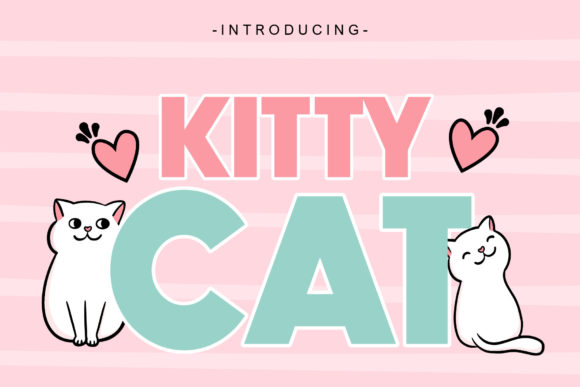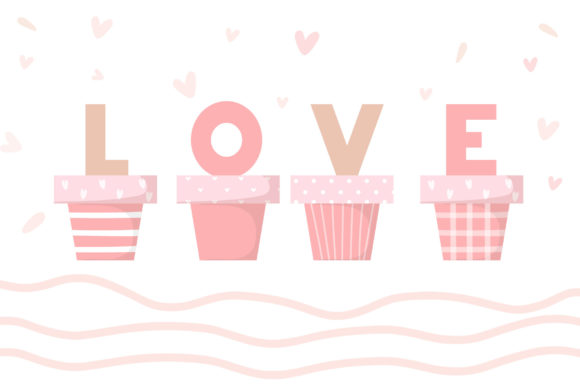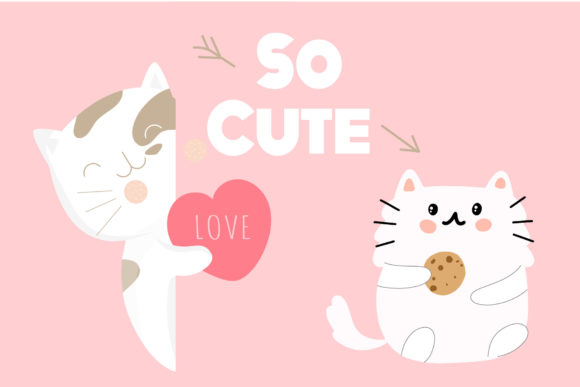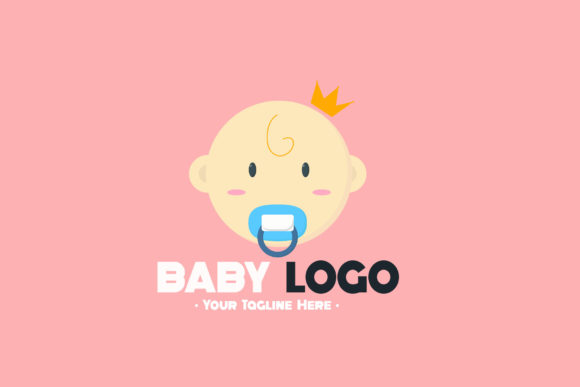
Kitty Cat Font
About the Kitty Cat Font
Unleash your creativity with Kitty Cat Font, a versatile font perfect for a wide range of applications. Kitty Cat is a sans serif font designed to look cute and fun. Whether you’re using it for crafts, digital design, presentations, or making greeting cards, this font has the potential to become your favorite go-to font, no matter the occasion!
Kitty Cat’s playful design shines in headlines, short text blocks on social media, and children’s book illustrations. It also works well for branding projects targeting a young, fun audience, such as toy companies or ice cream parlors. However, its informal style is less suitable for body text, lengthy documents, or applications requiring high readability, like websites or user interfaces.
Pairing Kitty Cat with a clean sans-serif like Open Sans for body text creates a balanced design. For a more sophisticated look, consider a classic serif like Garamond for contrast. If a more playful feel is desired, a handwritten script font can enhance its whimsical nature.
The font’s overall personality is undeniably cheerful and friendly, making it ideal for projects that need to convey a sense of fun and approachability.
Kitty Cat Font Usage Examples
Kitty Cat Font Example